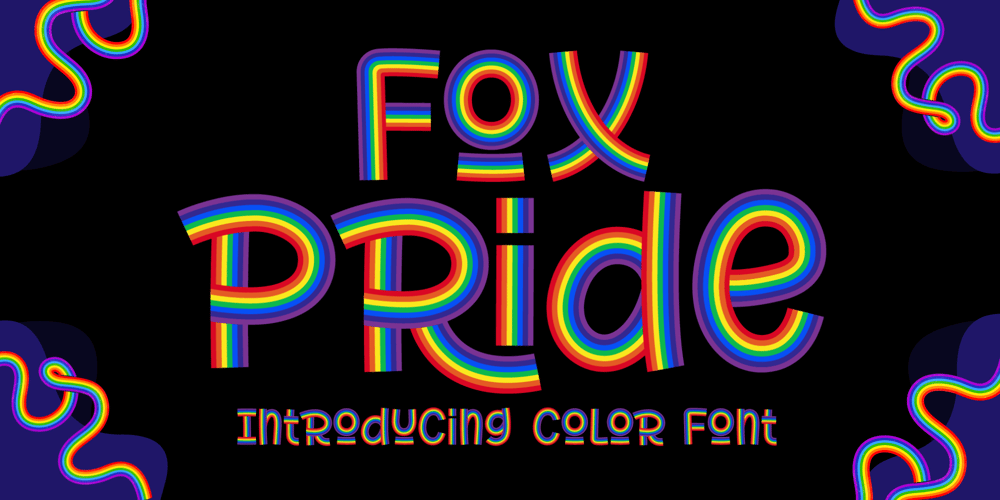
Fox Pride Font Family was designed by Rattana Rattanawan and published by Fox7. Fox Pride contains 1 styles and family package options. Fox Pride is a rainbow, beautiful, and cute color font. Design your product using this unique font and share your project for others to be inspired by your work! Learn more about color font support on third-party apps here: https://www.colorfonts.wtf/🌺🌺 Please note that Canva does not support color fonts! 🌺🌺